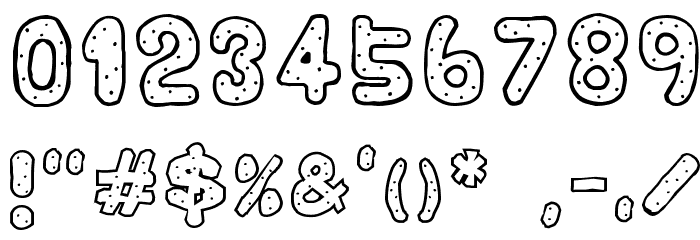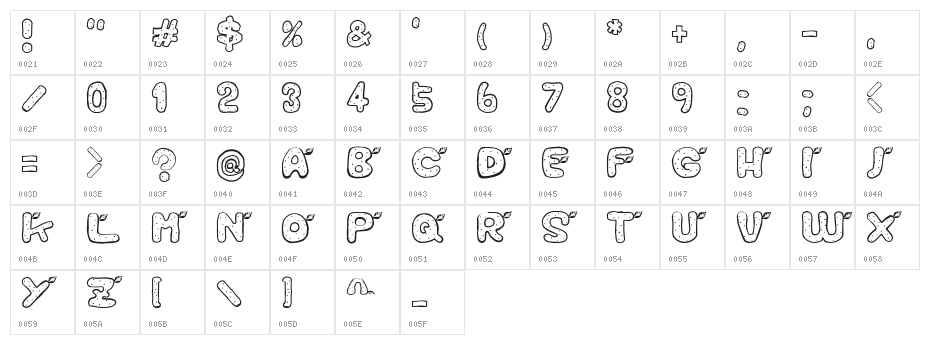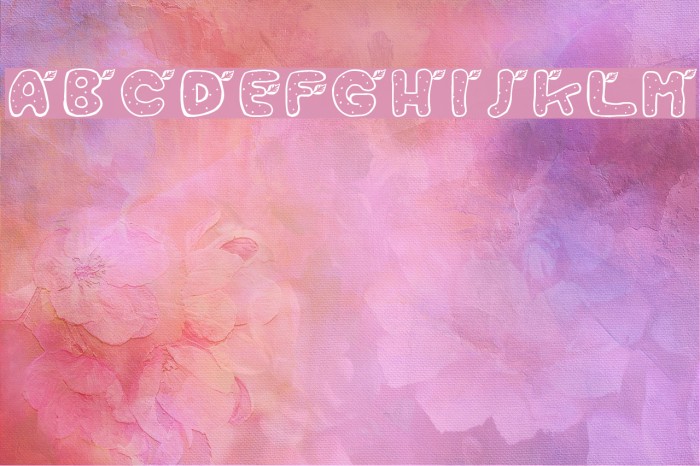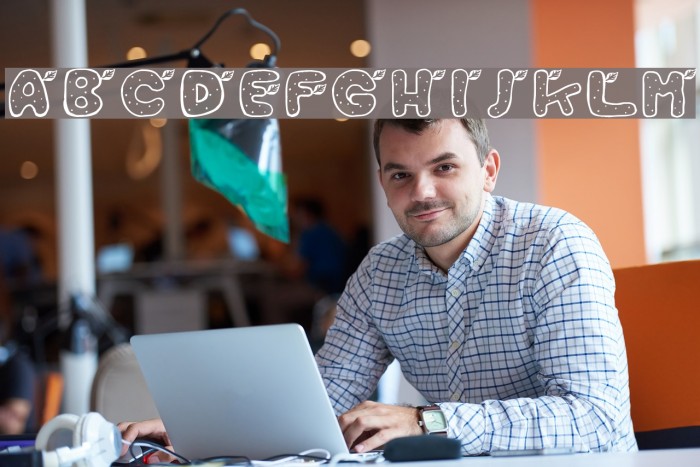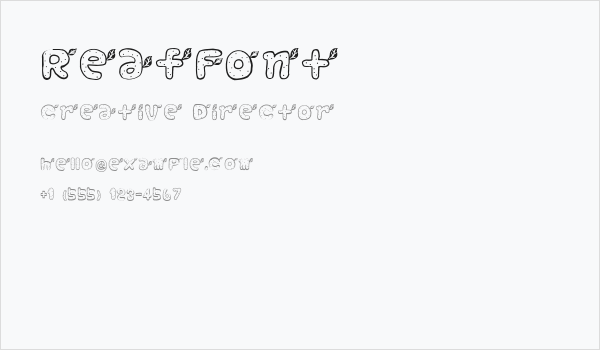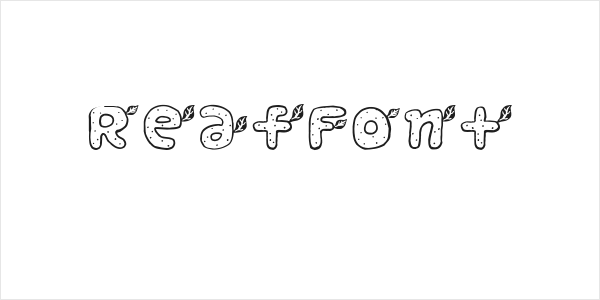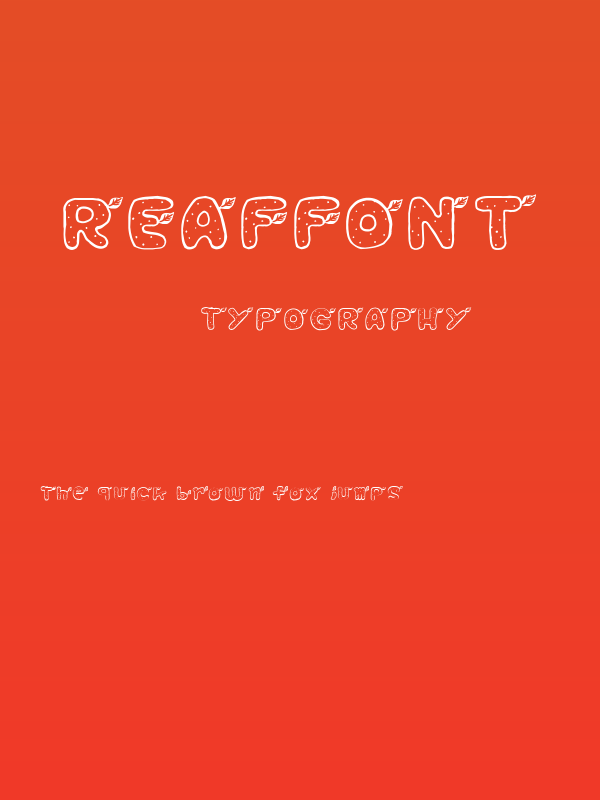
ReafFont Font
ReafFont Description
This playful and whimsical font features a unique design with a donut-like appearance. Each character is adorned with sprinkles and a bold outline, giving it a fun and decorative style. The letters are rounded and have a consistent thickness, creating a cohesive look. The font includes both uppercase and lowercase letters, numbers, and a variety of special characters. Its distinct style makes it ideal for projects that require a touch of creativity and fun, such as children's books, party invitations, or playful branding. The font's decorative nature is eye-catching and adds a sense of joy and lightheartedness to any design.
| Proposed Projects | Ideal for children's books, party invitations, playful branding, and creative designs. |